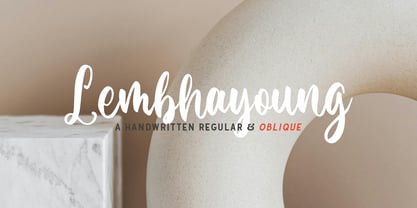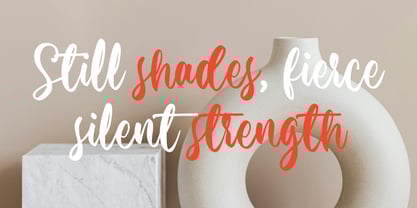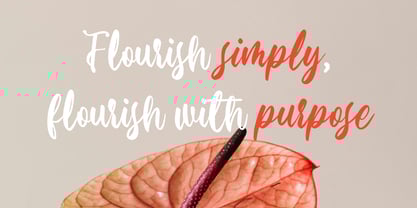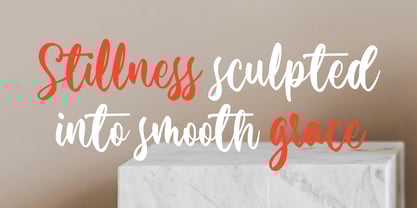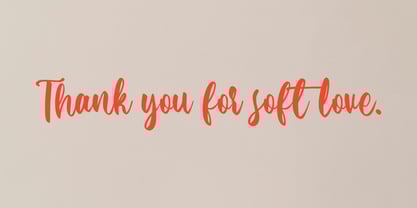
Lembhayoung
Lembhayoung is a handwritten script font that flows with tenderness and elegance. Its carefully shaped curves and natural strokes create a soft, human touch — perfect for brands that speak with calmness, gratitude, and emotion.
Crafted to blend into minimalist, romantic, and modern aesthetic spaces, Lembhayoung comes in two beautiful styles:
• Regular – clean and natural
• Oblique – stylish with added flair
Whether you’re designing wedding stationery, feminine branding, soft product packaging, inspirational quotes, or lifestyle blogs, Lembhayoung will bring refined warmth and visual poetry to your work.
Font Features
• Uppercase & lowercase
• Numerals & punctuation
• Multilingual support
• 2 styles: Regular and Oblique
• Smooth handwritten quality
• Great for both print and digital use
Perfect For
• Wedding invitations
• Social media quotes
• Packaging design
• Editorial design
• Feminine branding
• Journals & planners
• Instagram posts
• Logo design
• Minimal moodboard titles